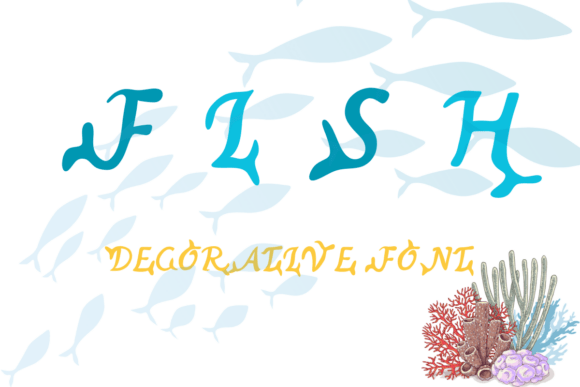
Fish Font: A Playful Decorative Font for Underwater-Themed Designs
The Fish Font is a delightful and creative typeface that captures the whimsical essence of aquatic life. Inspired by the shapes and curves of fish tails and ocean waves, this playful decorative font is perfect for a variety of design projects that require a touch of underwater charm.
What is Fish Font?
Fish Font is a unique and imaginative typeface that draws inspiration from the flowing forms of fish and ocean waves. Each letter is carefully crafted to mimic the curves and shapes of aquatic life, creating a font that is both visually appealing and highly distinctive.
Key Features of Fish Font
- Playful and Decorative: Fish Font is a highly decorative font that adds a touch of playfulness to any design project.
- Inspired by Aquatic Life: The font’s design is inspired by the shapes and curves of fish tails and ocean waves, making it perfect for underwater-themed designs.
- Perfect for Children’s Projects: The font’s playful and whimsical nature makes it ideal for children’s projects, such as books, posters, and party invitations.
- Suitable for Summer Party Invites: Fish Font is also perfect for summer party invitations, adding a touch of fun and playfulness to your designs.
- Marine Branding: The font’s aquatic inspiration makes it a great choice for marine branding, such as logos and packaging for aquatic-related products.
Use Cases for Fish Font
Fish Font is a versatile typeface that can be used in a variety of design projects. Here are some use cases where Fish Font can shine:
Underwater-Themed Designs
Fish Font is perfect for underwater-themed designs, such as posters, flyers, and brochures. Its playful and decorative nature adds a touch of whimsy to any design project.
Children’s Projects
Fish Font is ideal for children’s projects, such as books, posters, and party invitations. Its playful and fun nature makes it perfect for engaging young audiences.
Summer Party Invites
Fish Font is also perfect for summer party invitations, adding a touch of fun and playfulness to your designs.
Marine Branding
The font’s aquatic inspiration makes it a great choice for marine branding, such as logos and packaging for aquatic-related products.
Benefits of Using Fish Font
Fish Font offers several benefits for designers and businesses looking to add a touch of underwater charm to their designs. Here are some of the benefits of using Fish Font:
- Unique and Distinctive: Fish Font is a highly distinctive and unique typeface that sets your designs apart from others.
- Playful and Engaging: The font’s playful and fun nature makes it perfect for engaging young audiences and adding a touch of whimsy to your designs.
- Versatile: Fish Font is a versatile typeface that can be used in a variety of design projects, from underwater-themed designs to children’s projects.
Tips for Using Fish Font
Here are some tips for using Fish Font in your design projects:
- Use it Sparingly: Fish Font is a highly decorative font, so it’s best to use it sparingly to avoid overwhelming your designs.
- Pair it with Simple Fonts: Pair Fish Font with simple fonts to create visual contrast and make your designs more readable.
- Experiment with Colors: Fish Font looks great in bright and bold colors, so don’t be afraid to experiment with different color schemes.
Fish Font is a playful and decorative typeface that adds a touch of underwater charm to any design project. With its unique and distinctive design, Fish Font is perfect for underwater-themed designs, children’s projects, summer party invites, and marine branding. By following the tips outlined in this article, you can make the most of Fish Font and create visually stunning designs that engage and delight your audience.